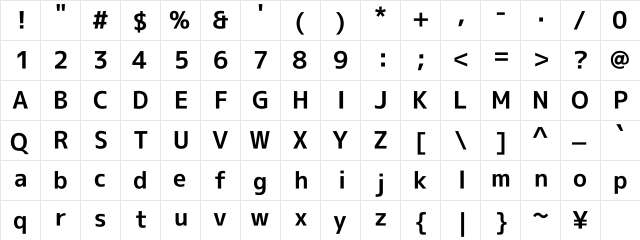
M+ 1c bold
Design Context for M+ 1c Typeface
M+ 1c takes a measured approach to typography — its balanced proportions and neutral character make it a reliable workhorse for both digital and print work. The heavy weight commands attention and anchors typographic hierarchies.